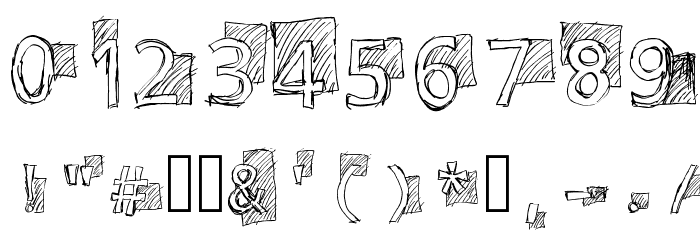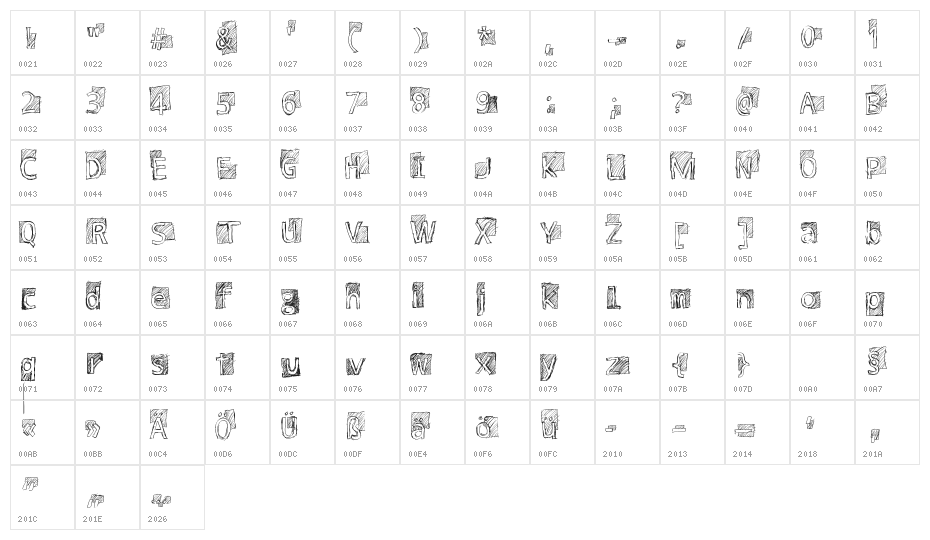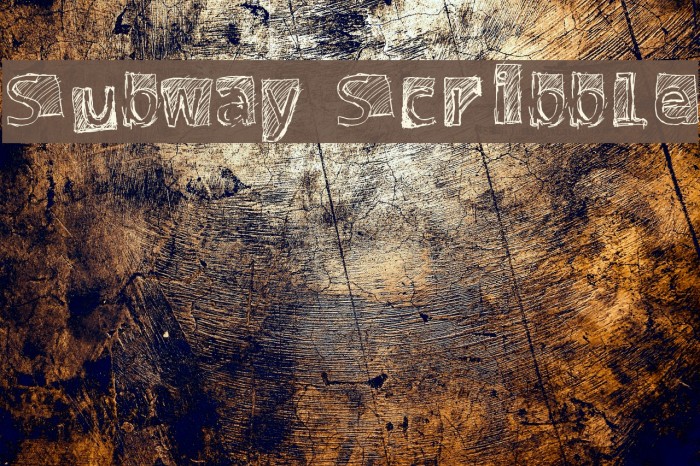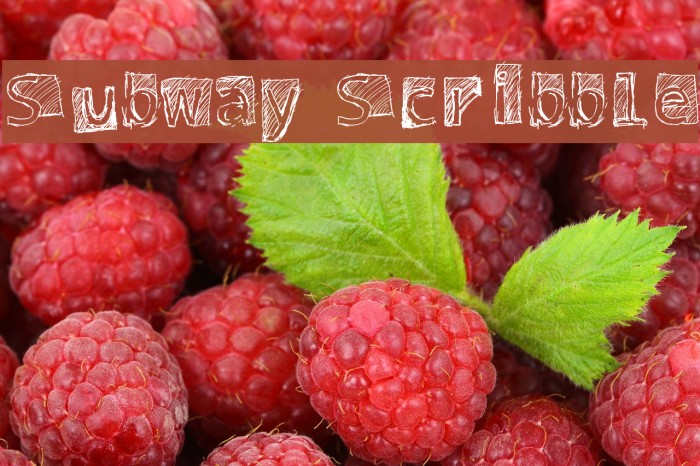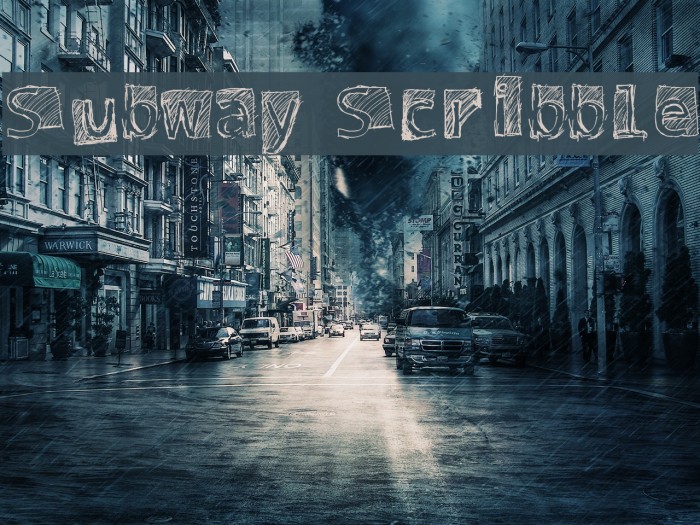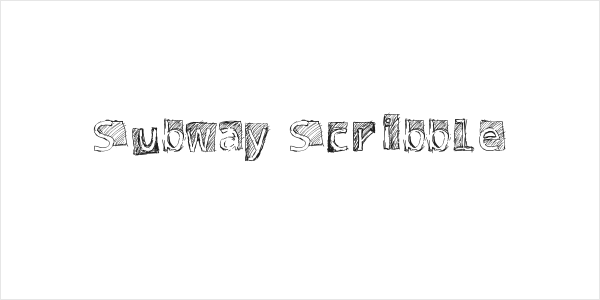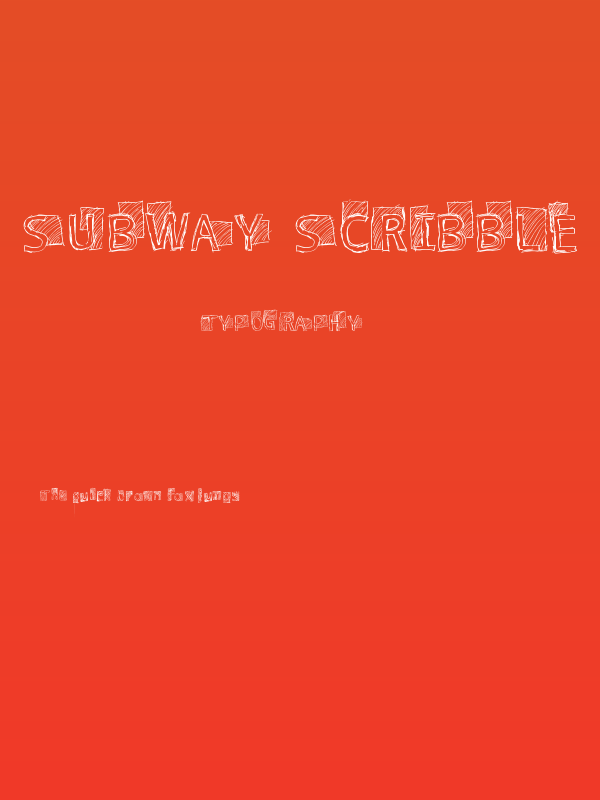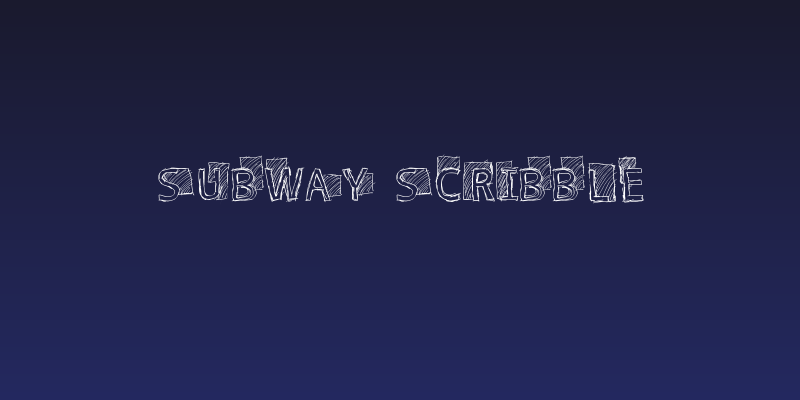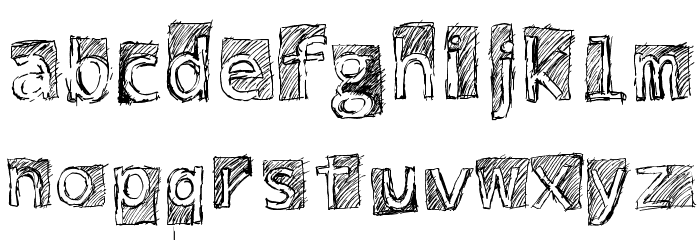
Subway Scribble Font
Subway Scribble Description
This font features a unique, hand-drawn scribble style that gives it a playful and artistic appearance. Each character is outlined with a rough, sketch-like texture, reminiscent of doodles or graffiti. The letters are bold and slightly irregular, adding to the casual and informal feel. The uppercase and lowercase letters maintain a consistent style, with numbers and special characters following the same design ethos. This font is perfect for projects that require a creative and informal touch, such as posters, children's books, or artistic branding.
| Overall Style | Artistic, Playful, Informal |
| Proposed Projects | Ideal for posters, children's books, artistic branding, and creative projects. |